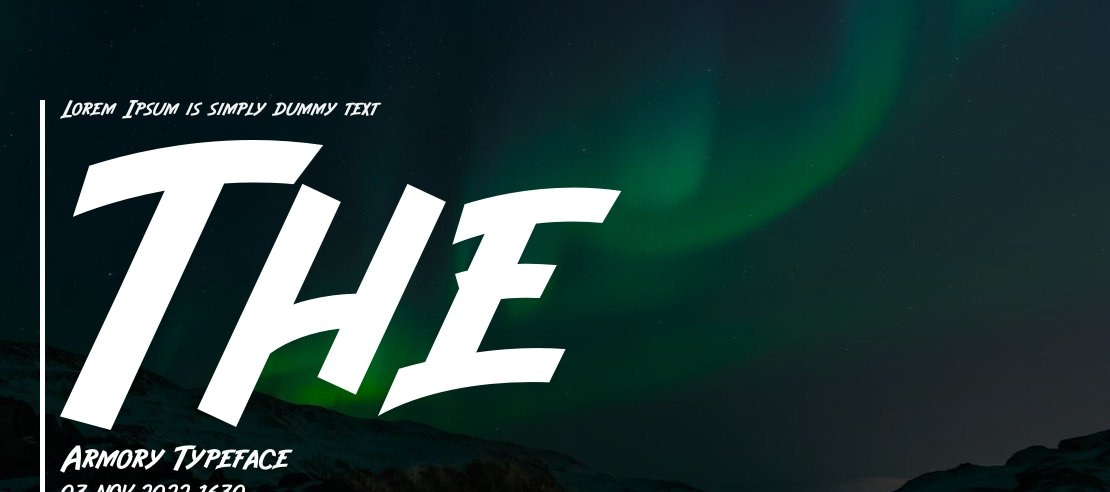
The Armory Font is perfect for military defense branding, tactical equipment advertising, security company logos, fortress architecture signage, historical weapon museums, strategic gaming interfaces, protective services materials, and commanding corporate communications.
This font is exciting because it embodies fortress-like strength with armored letterforms that capture the impenetrable defense and tactical precision of military fortifications and strategic warfare operations. The Armory Font brings tactical sophistication to designs through its reinforced structure and battle-tested styling that feels like typography forged in military foundries and tempered by countless strategic victories. The font's defensive character makes it perfect for security brands and want to communicate protection, strength, and the kind of tactical excellence that ensures victory through superior preparation and strategic advantage.
The The Armory Font family includes Regular, Bold, Light, Tactical, Fortress, and Strategic variants, each designed to capture different aspects of military precision while maintaining the font's characteristic defensive appeal and tactical authenticity. The character set features armored details that enhance the font's connection to military traditions and strategic excellence.
Whether you're creating branding for defense organizations, designing materials for tactical operations, or developing content that needs to project protective strength, The Armory Font Free Download delivers the fortified typography that builds unbreakable defenses and ensures strategic superiority through tactical excellence and military precision. This remarkable typeface transforms text into tactical commands that resonate with the same disciplined strength and strategic wisdom found in the world's most elite military units, ensuring your message communicates the unwavering protection and tactical excellence that defines brands committed to defending what matters most through superior strategy, unbreakable defense, and military-grade precision.